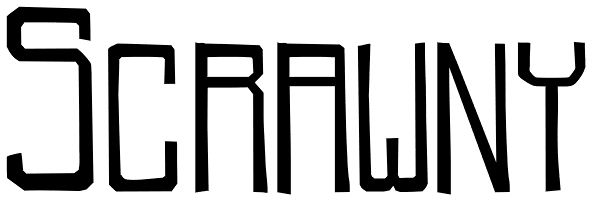
Scrawny
Scrawny is a long-legged beanpole of a font. Quirky, a little retro — and most certainly smile-inducing — Scrawny sports tall and thin characters with high horizontal crossbars to give a feeling of "cute shyness" and "warm fuzziness." Scrawny works...